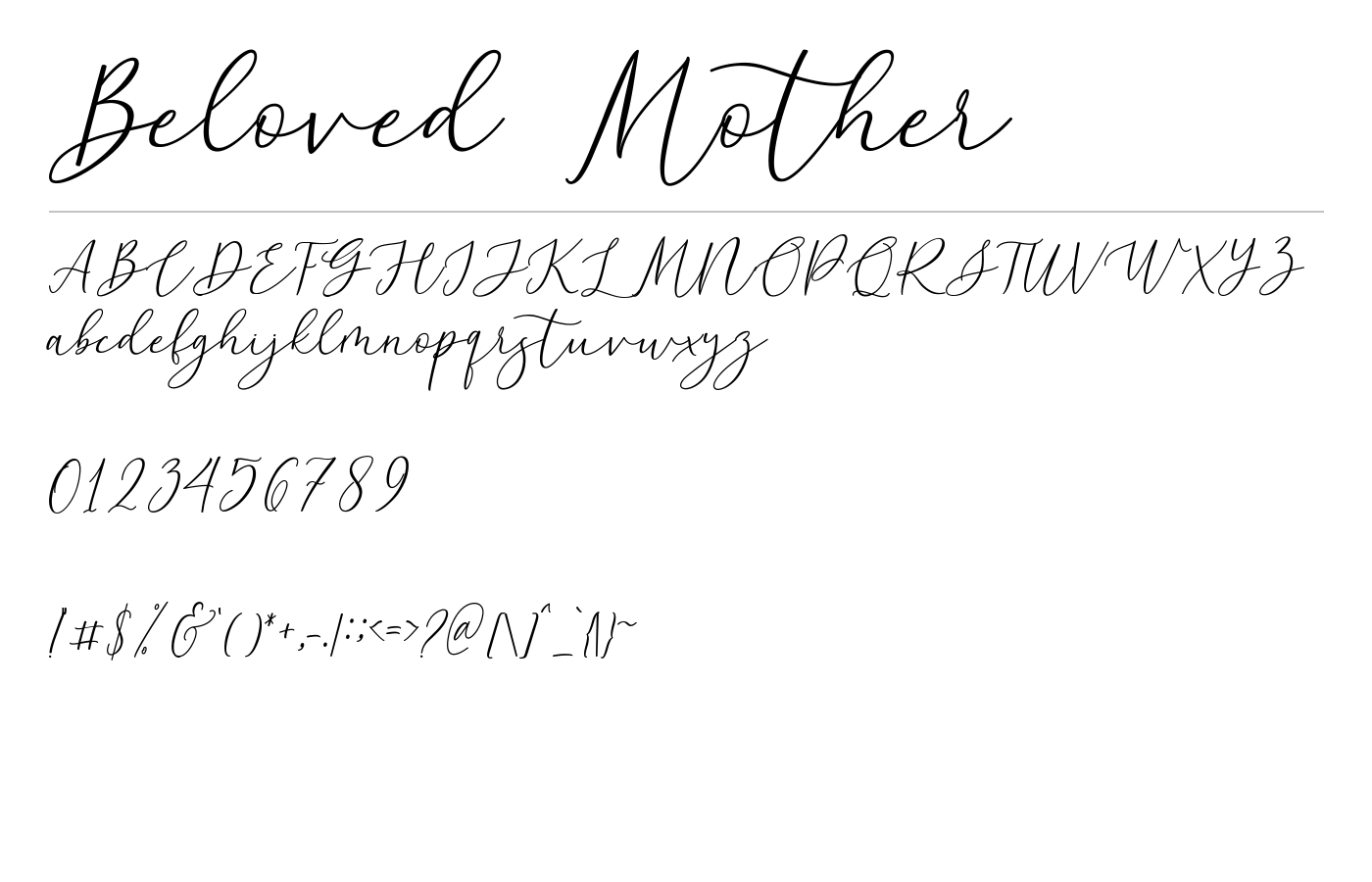
Beloved Mother is an elegant, script-style font featuring delicate, flowing strokes that mimic natural handwriting with a refined, graceful touch. Its thin, slightly varied line weight and tall, airy letterforms create a sophisticated and personal feel, making it perfect for invitations, branding, and design projects that seek a warm, intimate, and stylish impression. This font works well where a soft, romantic, and handcrafted vibe is desired.
Beloved Mother Font
About Beloved Mother Font